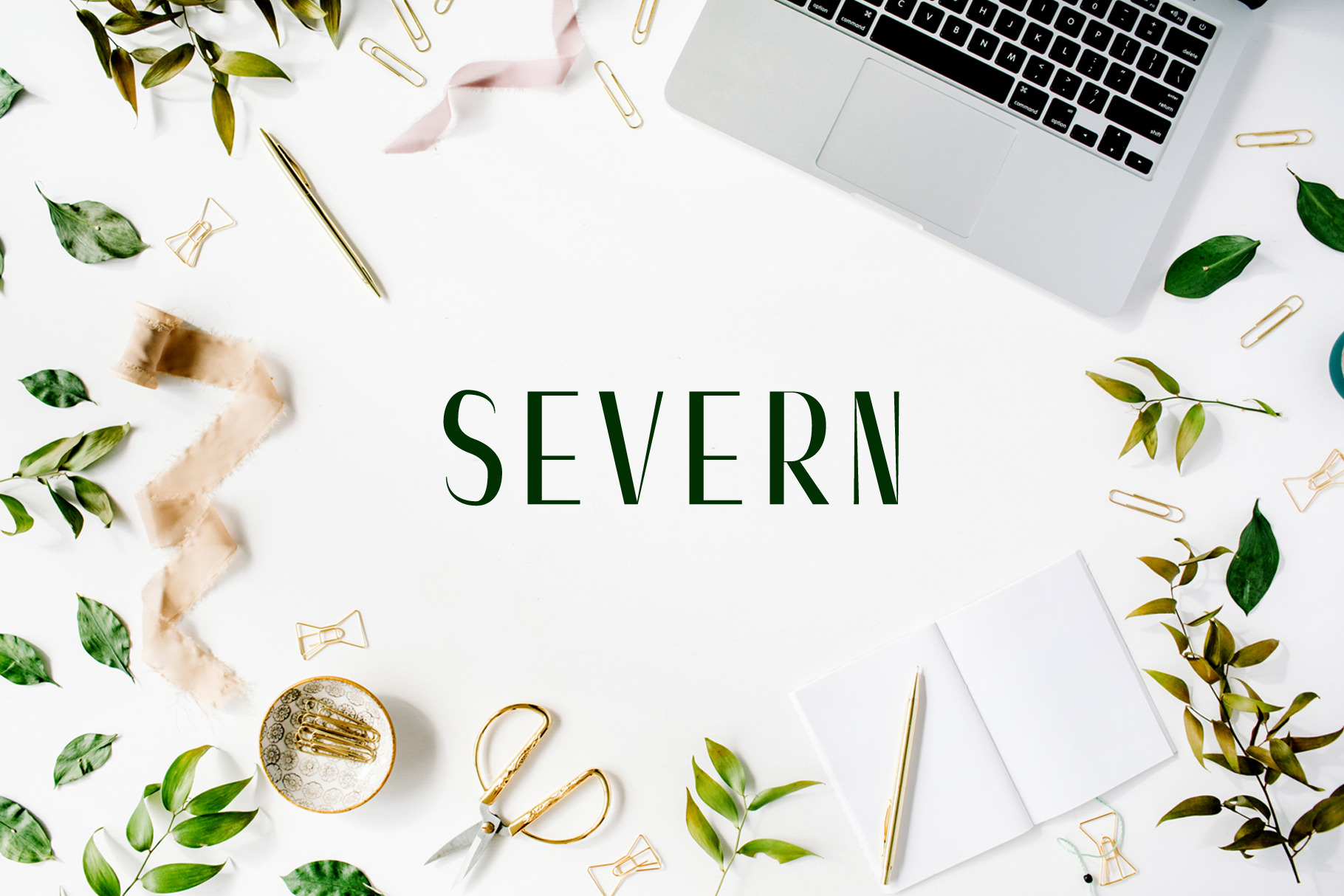
Severn Sans Serif Font Family
Severn Sans Serif Font Family is a modern minimalist font to make your design more elegant. It comes with 3 weights. Severn is good for making creative templates, stationary, logos, headlines, banners and templates etc.
- Regular, Light, Thin and Bold Weights
- Uppercase Multilingual Letters
- Lowercase Multilingual Letters
- Non English Characters ( Latin Supplement + Latin Extended A)